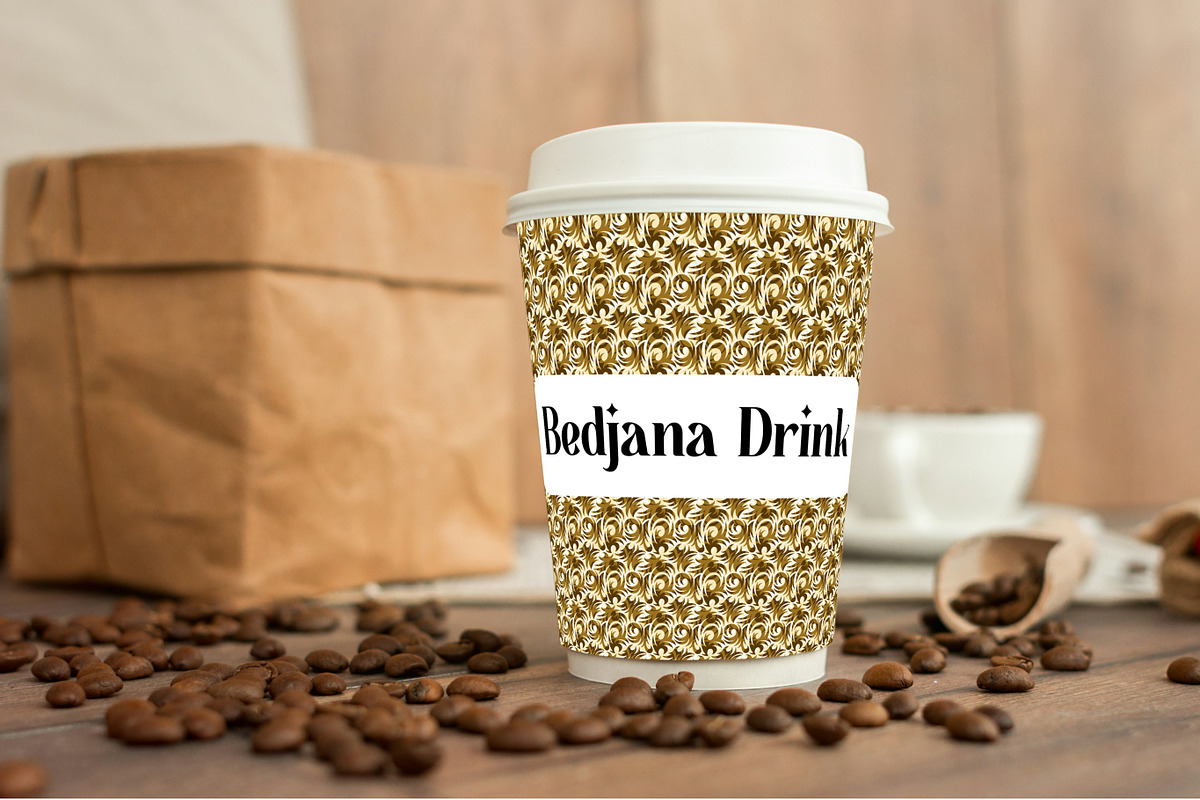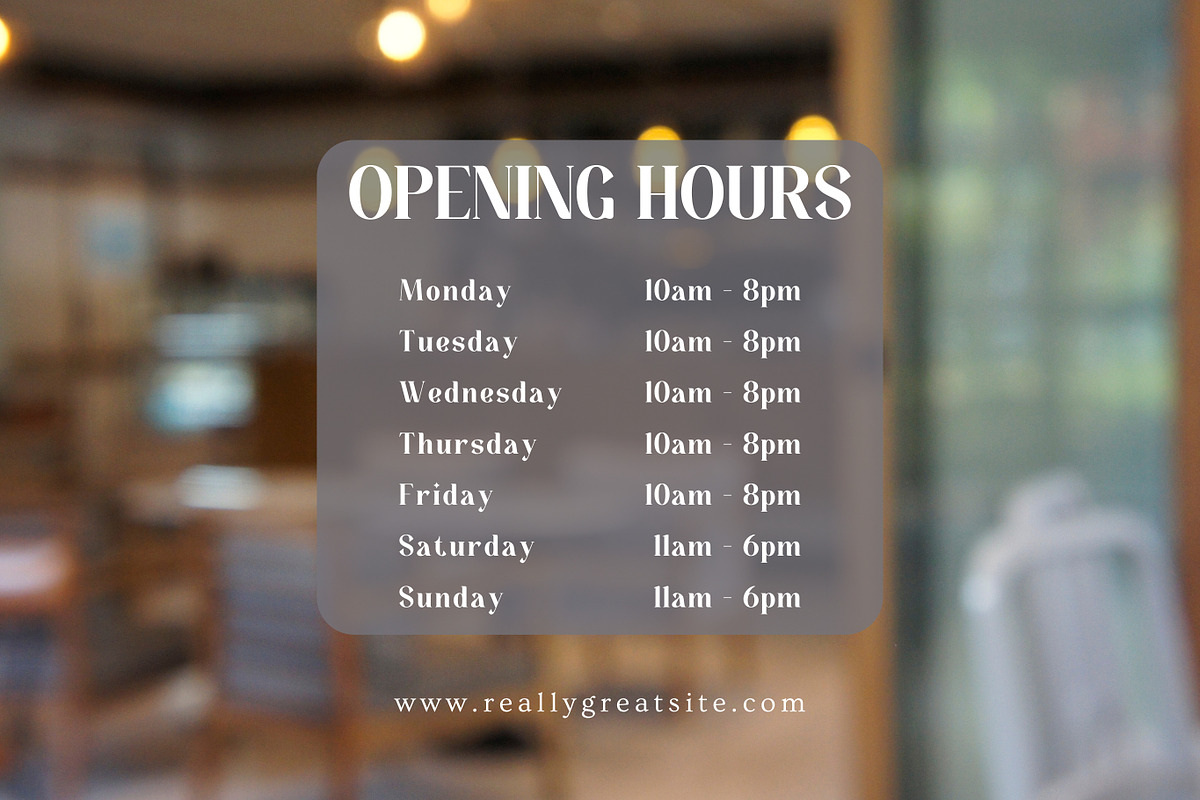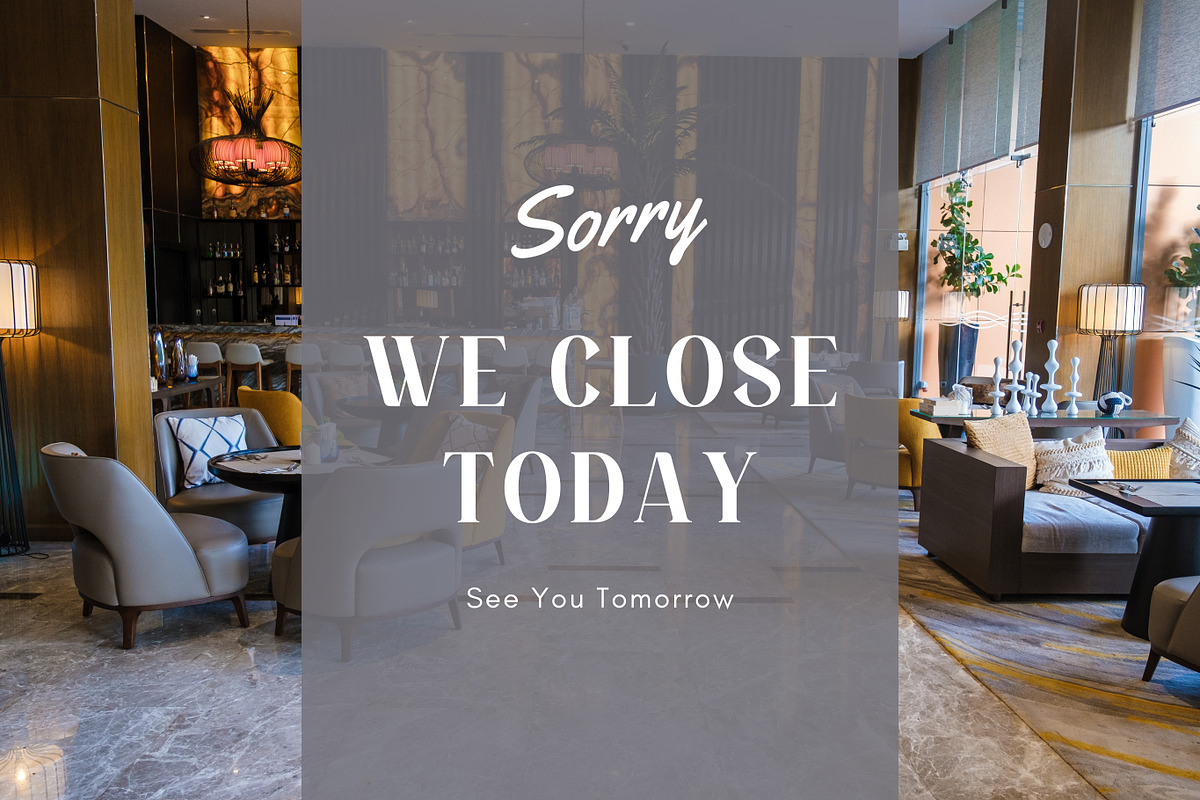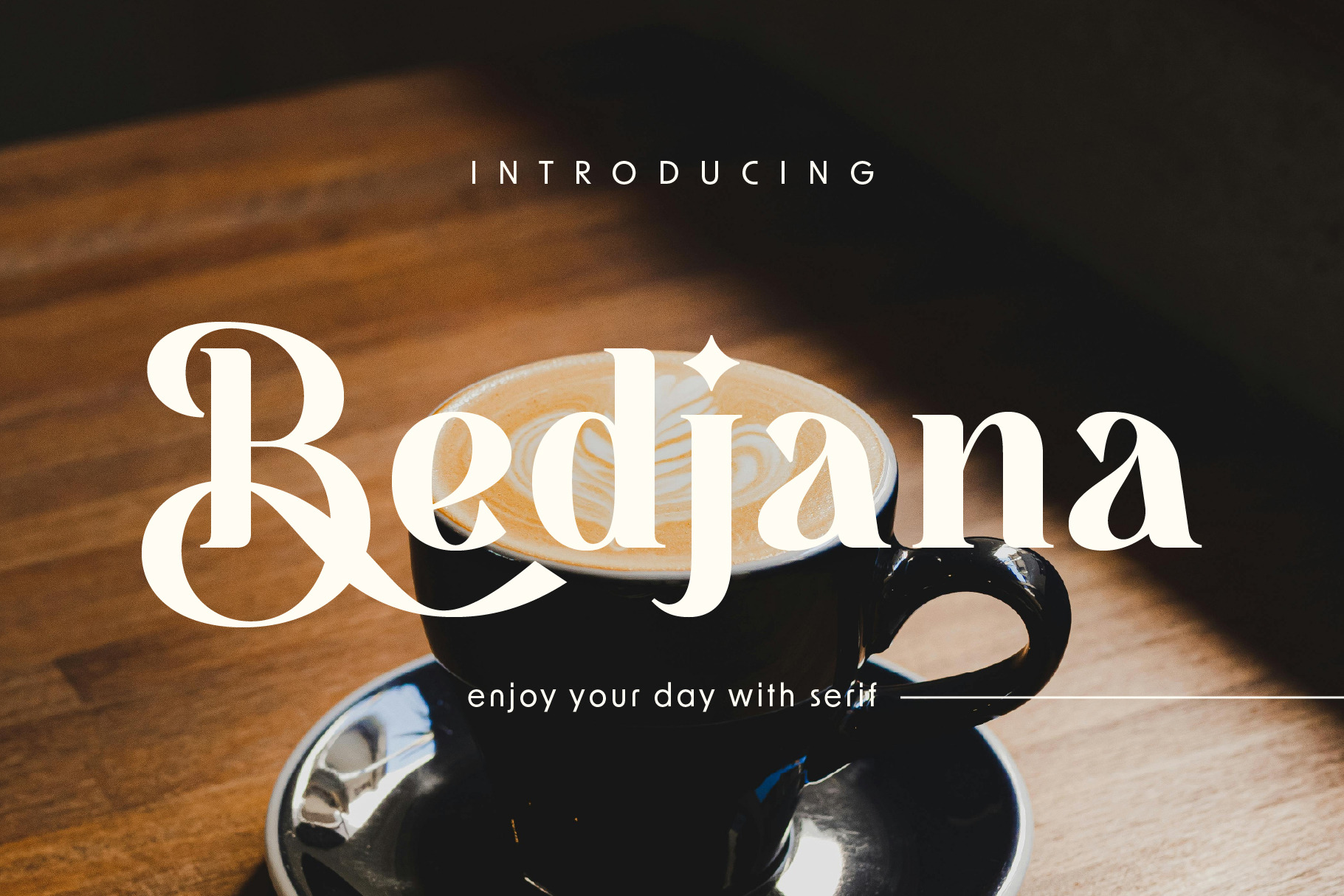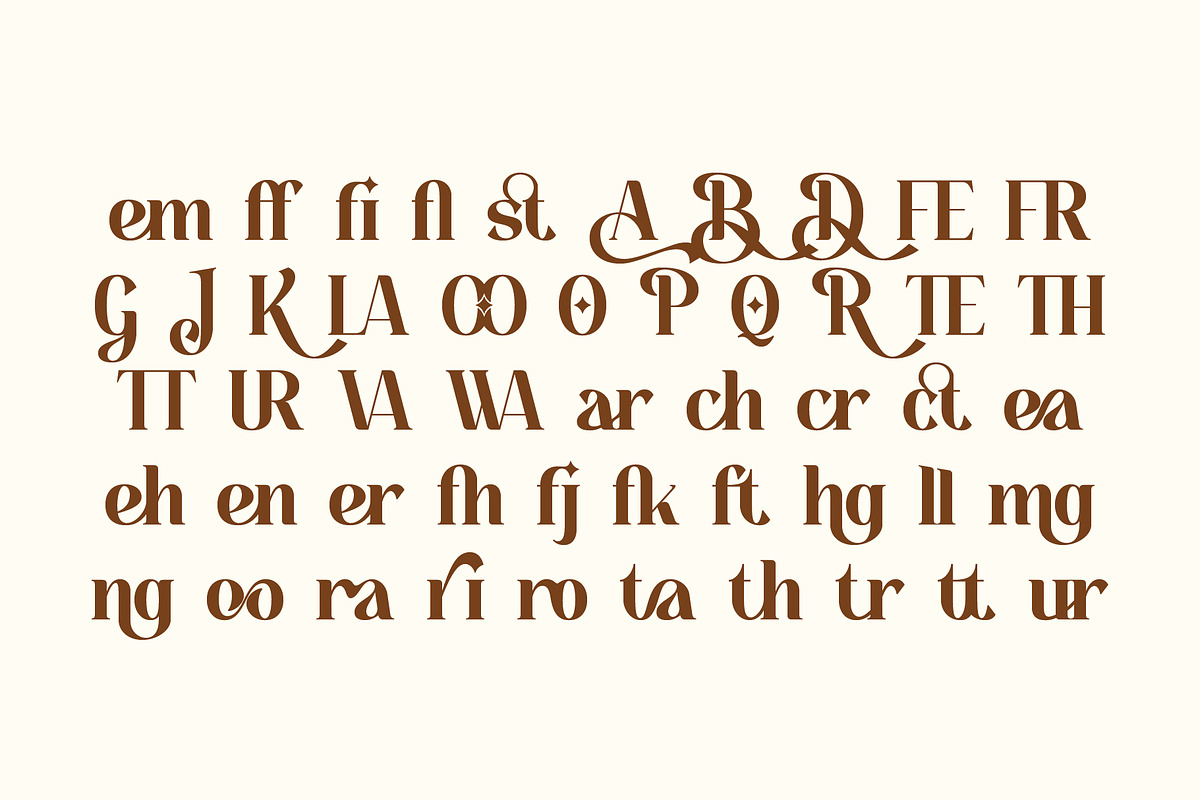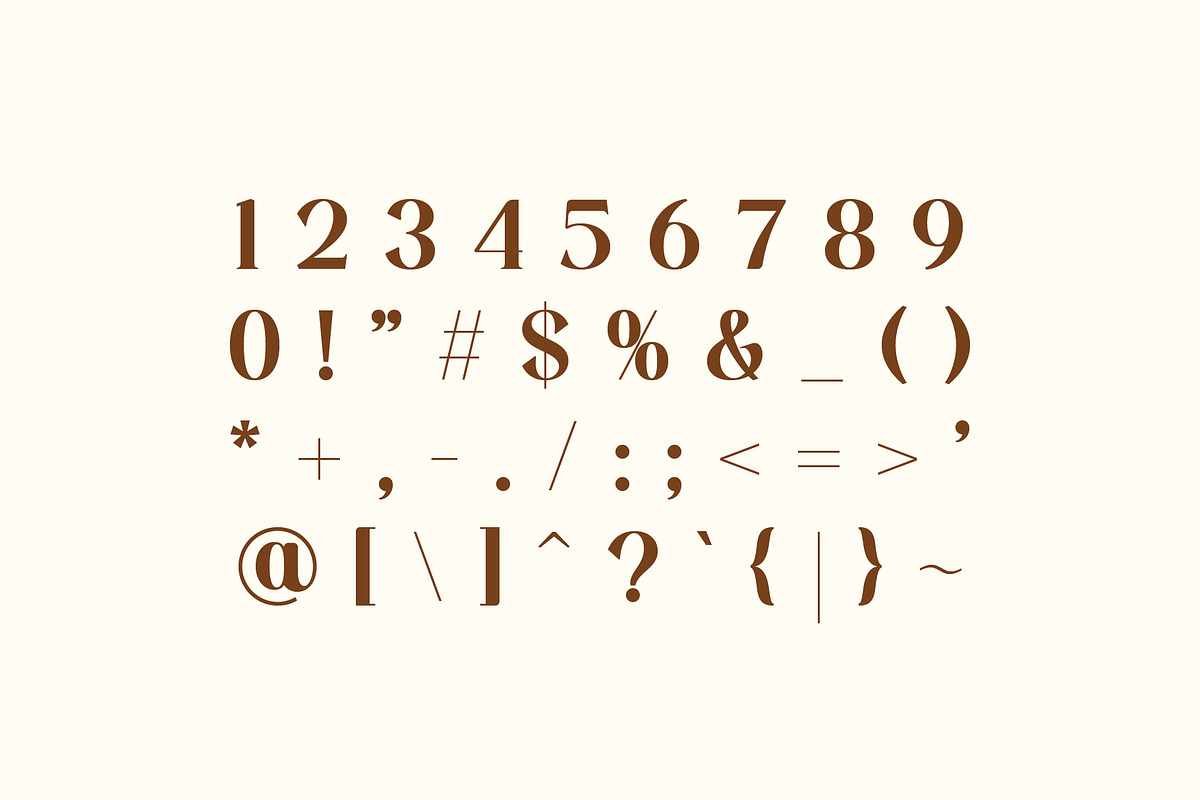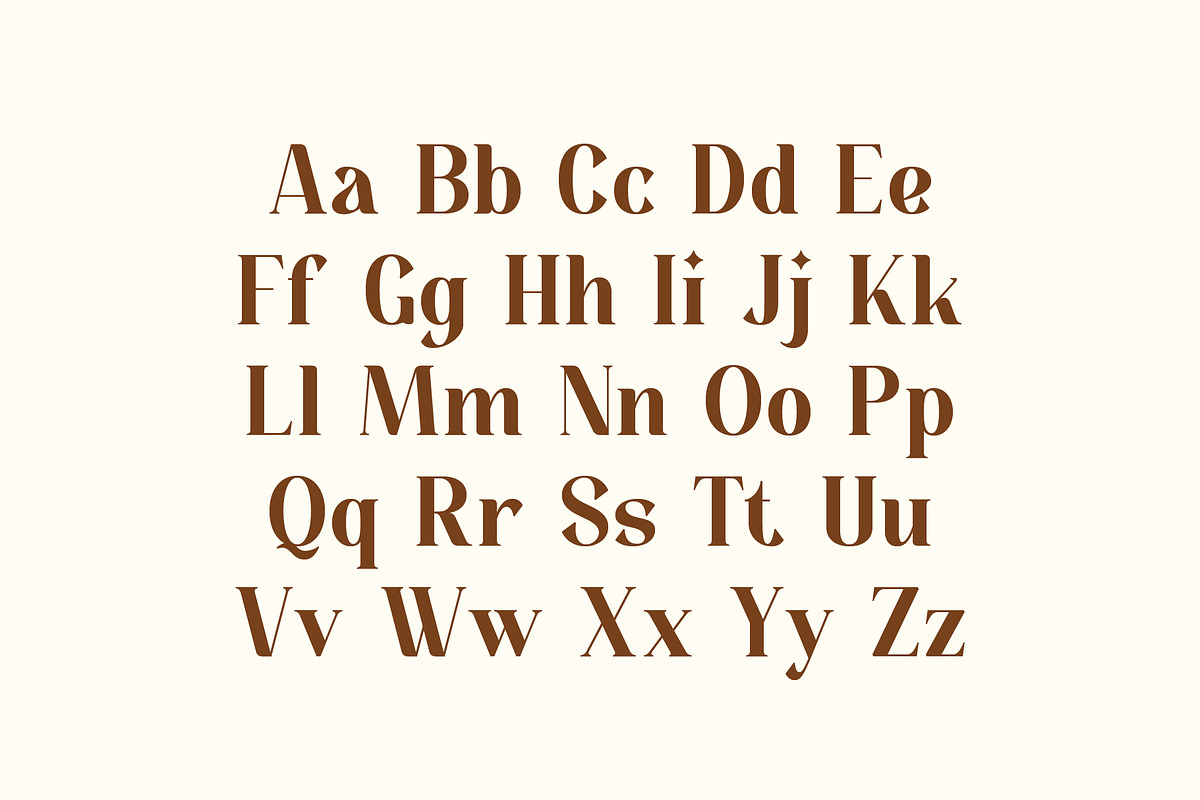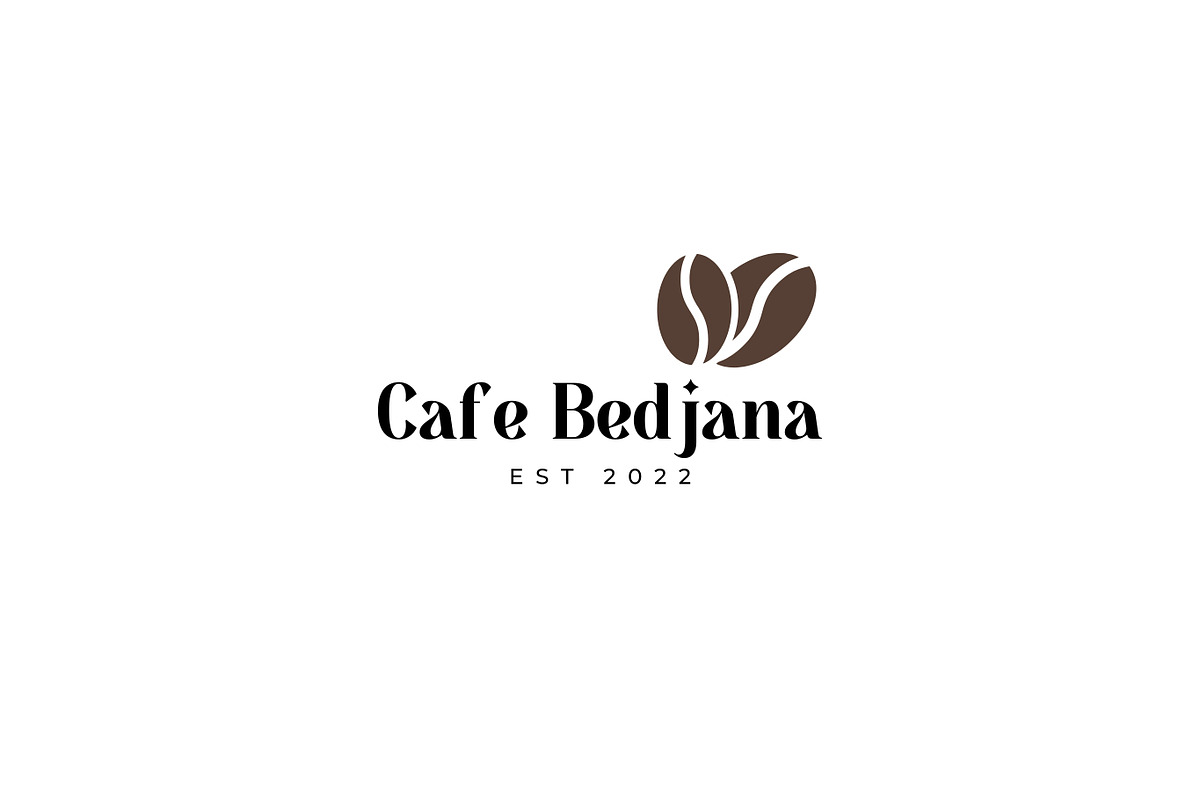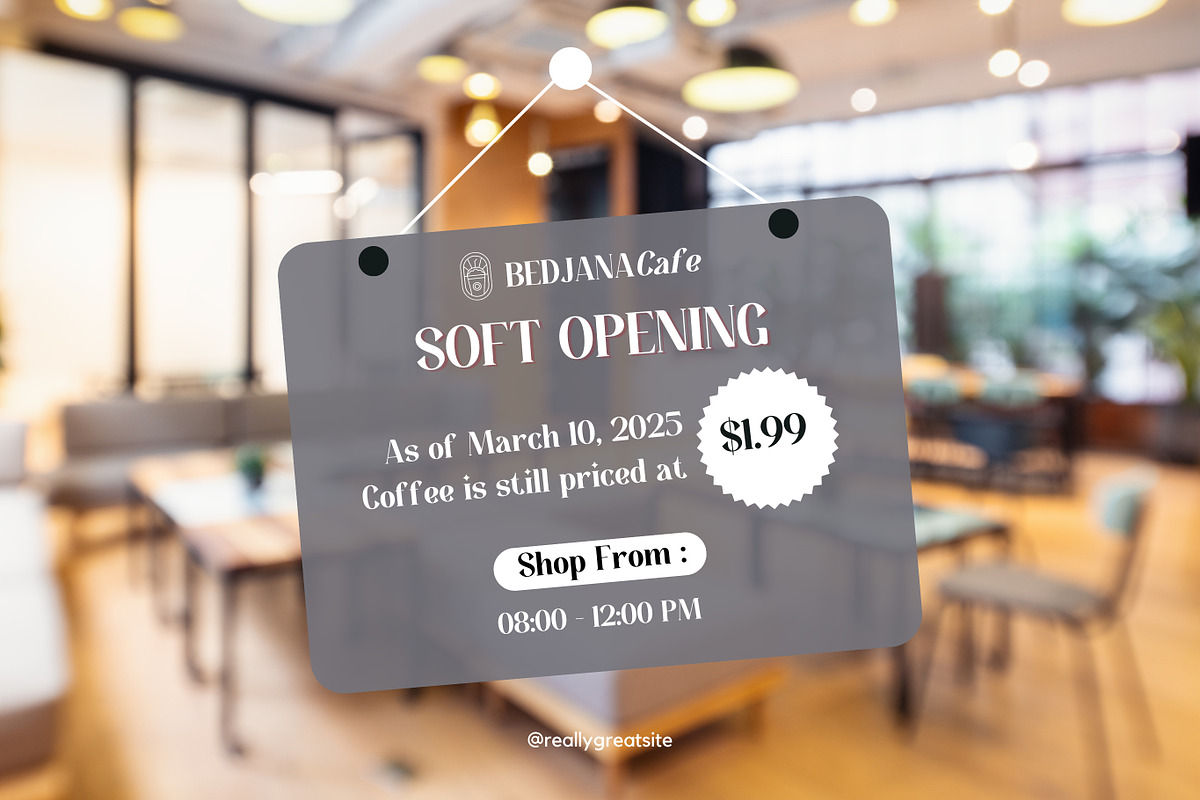
Bedjana - Cafe Serif Font
Bedjana is a display typeface really nice font for those who want to make a statement without being too flashy. Bedjana typeface that attractive one with clean line and has the right thickness makes it easy to read. Bedjana is a elegant and modern serif typeface, perfect for your logos, magazines, and much more. And this font includes with matching italic too. Such a fun typeface to play with!